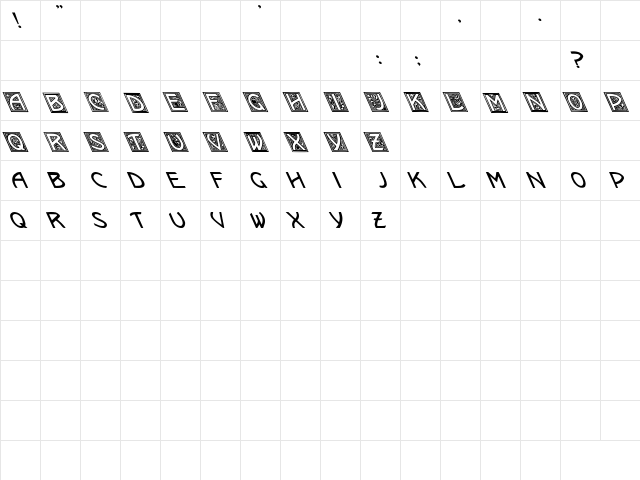
Kramer vs. Leftie Regular Font Preview
Kramer vs. Leftie Regular
Design Context for Kramer vs. Leftie Typeface
Kramer vs. Leftie is a composed and adaptable typeface that performs quietly and consistently across a wide range of design contexts.